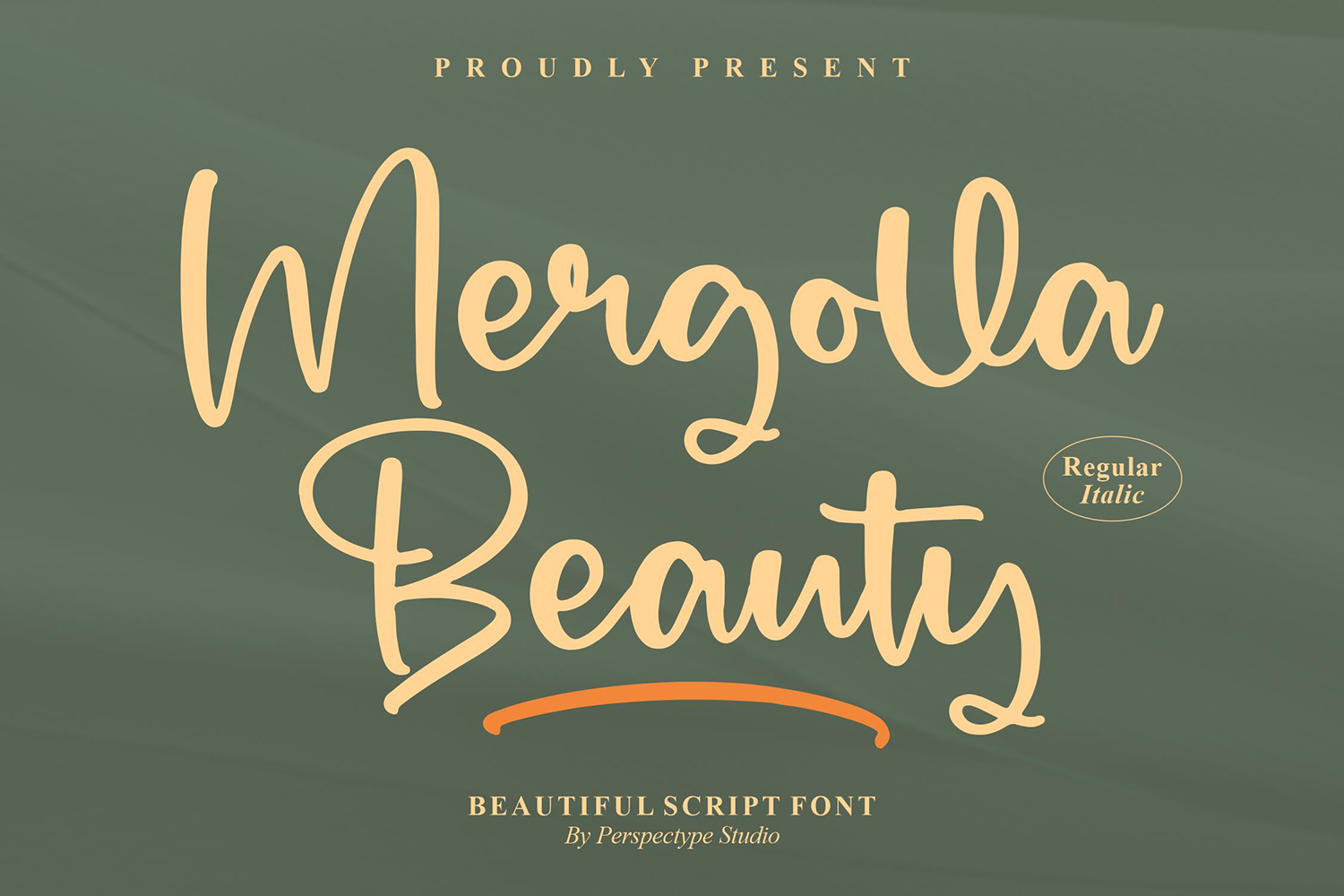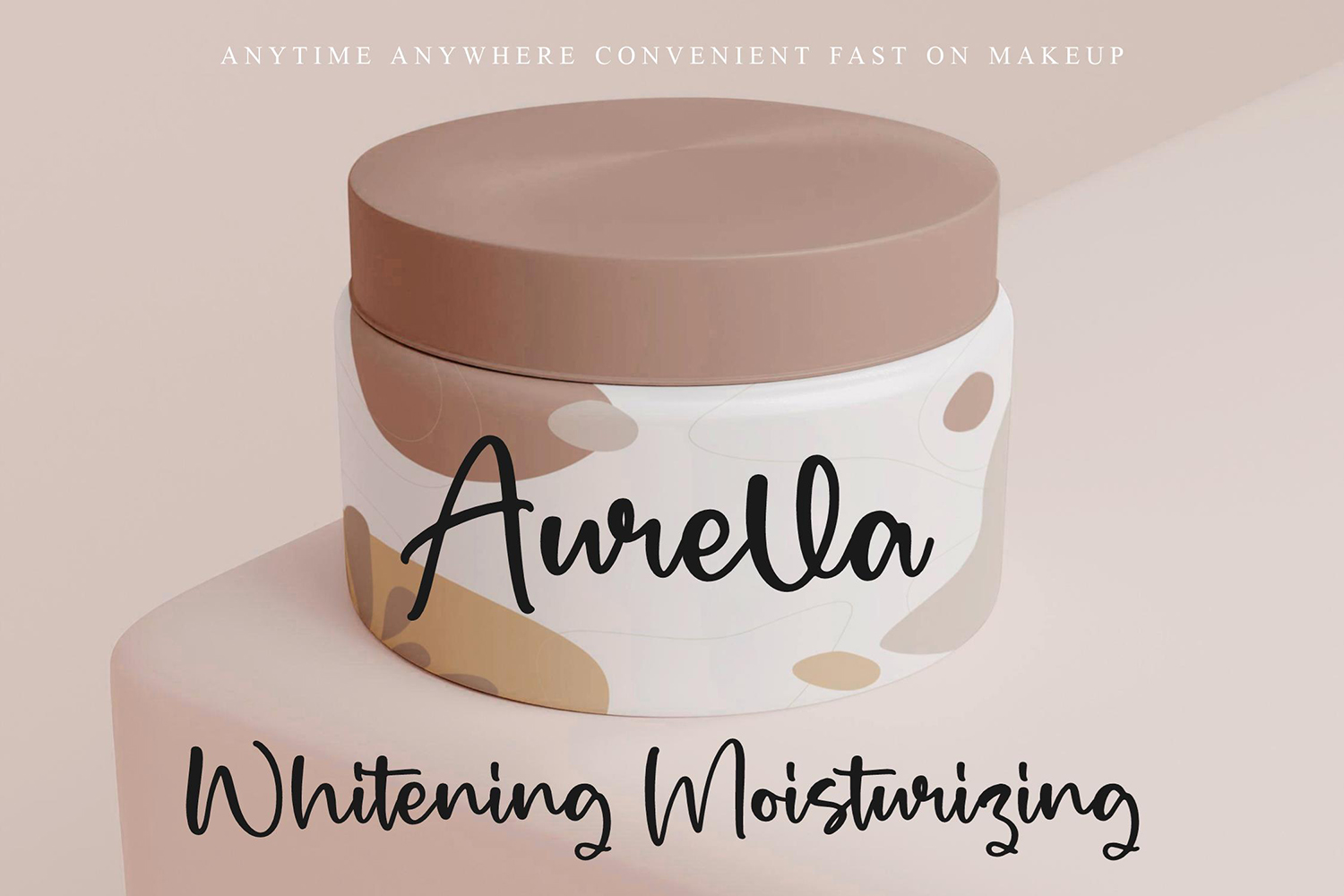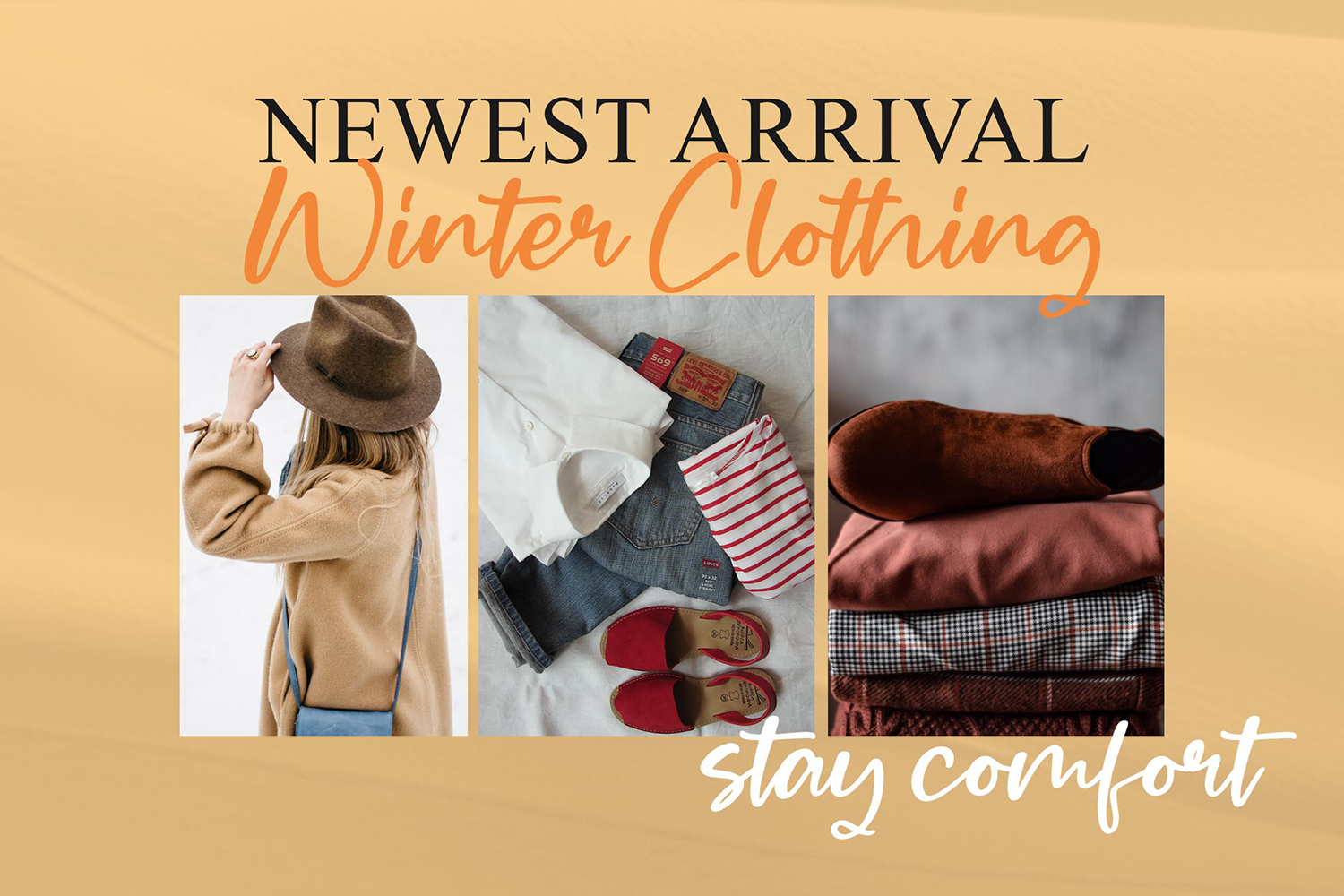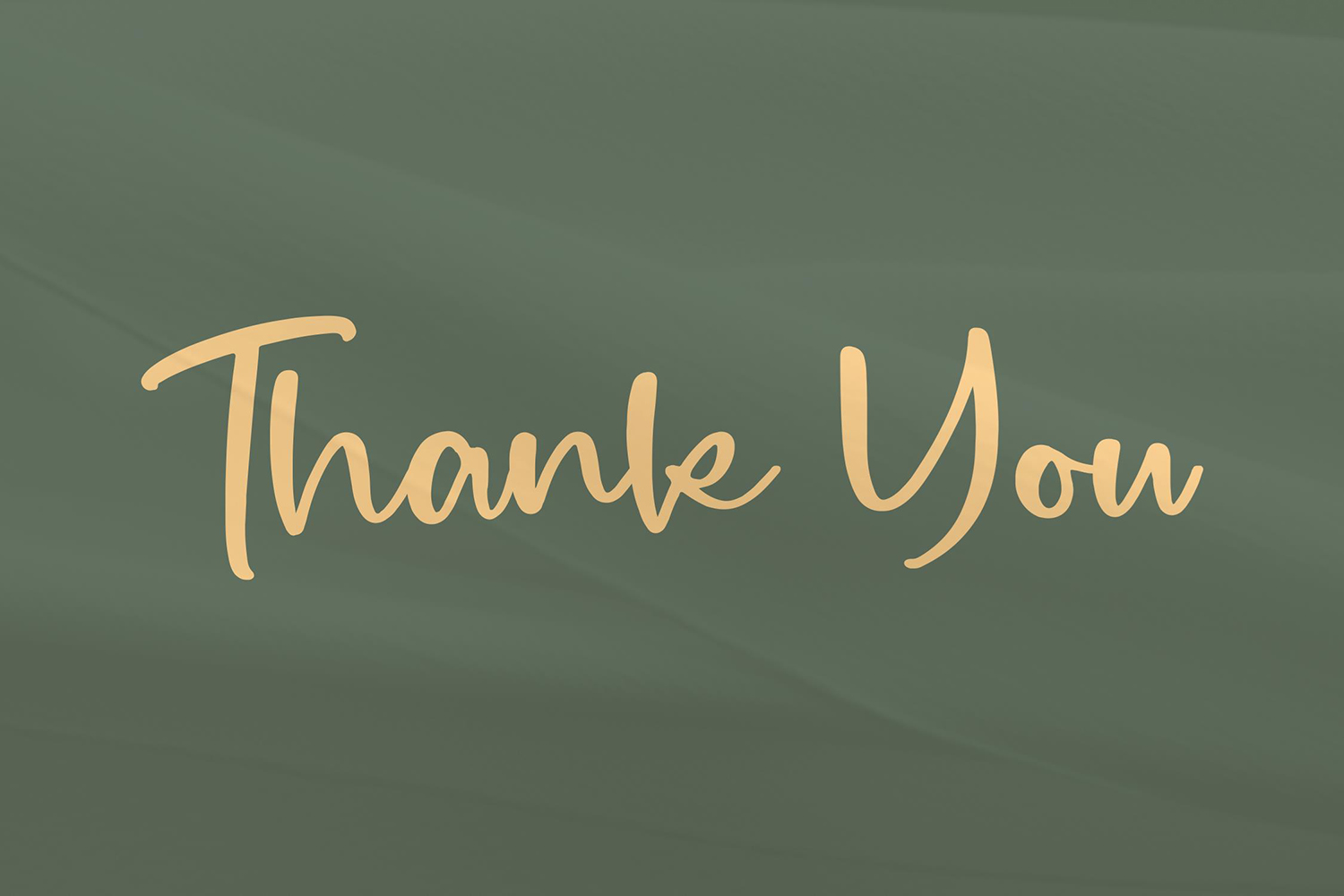
Mergolla Beauty Free Font
Introducing Mergolla Beauty, a mesmerizing script font that exudes a sense of grace and beauty. With its fluid, flowing strokes and natural letter variations, this font perfectly captures the essence of elegant handwriting, making it a perfect choice for any design project that requires a touch of beauty and elegance. Whether you’re creating a luxurious wedding invitation, a romantic greeting card, or a high-end fashion campaign, Mergolla Beauty adds a touch of elegance and sophistication to any design.
The font’s unique style is inspired by traditional calligraphy, which is characterized by fluid and dynamic strokes, elegant letterforms, and a sense of refinement. This makes Mergolla Beauty ideal for creating designs such as invitations, posters, packaging, and branding. Its versatility allows you to use it for various designs like headlines, social media posts, and more.